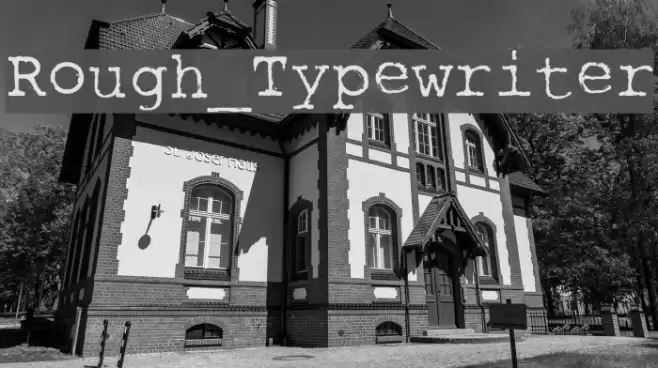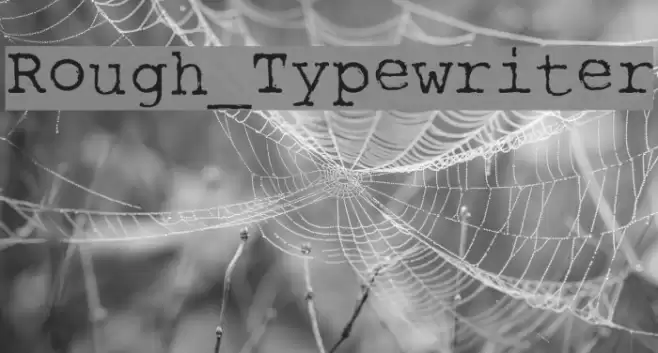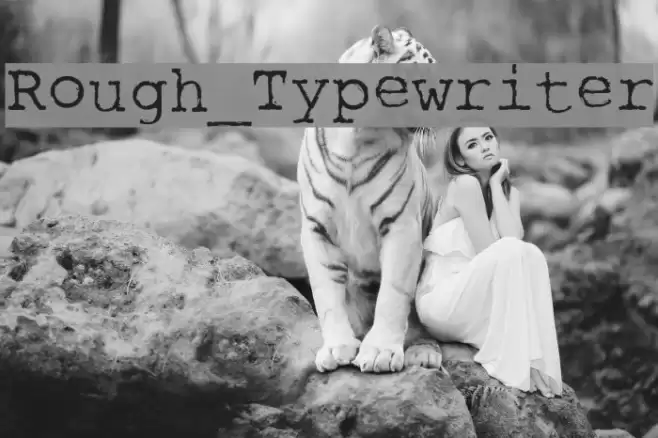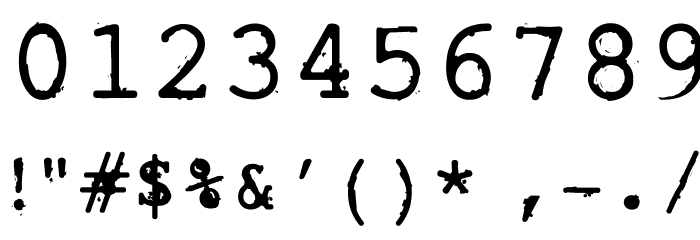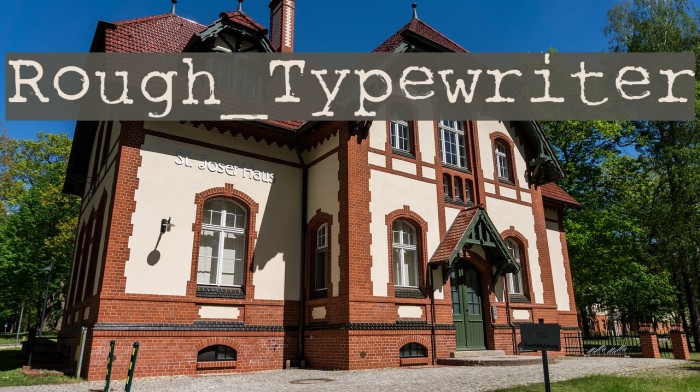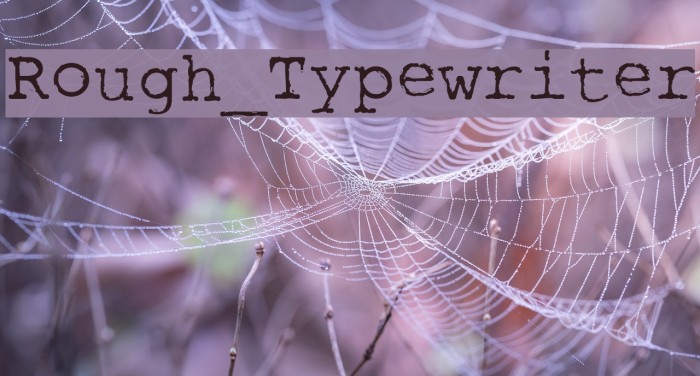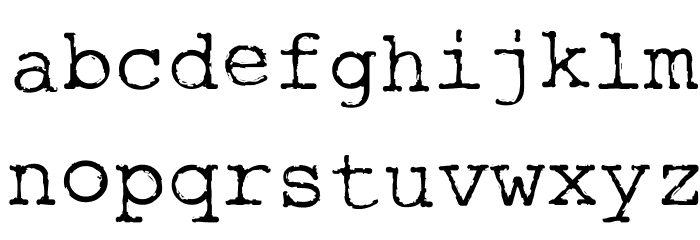
Rough_Typewriter Font
Rough_Typewriter Description
This font captures the nostalgic essence of vintage typewriters with its rough, textured appearance. Each character is uniquely distressed, giving it an authentic, worn look that mimics the imperfections of ink on paper. The font maintains a monospaced structure, typical of traditional typewriter fonts, ensuring uniformity in character width. Its bold strokes and irregular edges contribute to a rugged charm, making it ideal for projects that require a retro or industrial feel. The font's distinctive style is both functional and decorative, suitable for creating a sense of history and authenticity.
A rugged, vintage typewriter-style font with a distressed, textured appearance from Uncategorized fonts.
- Proposed Projects: Ideal for vintage-themed designs, retro posters, typewriter-inspired artwork, and projects requiring an industrial or historical aesthetic.
- Overall Style: Vintage